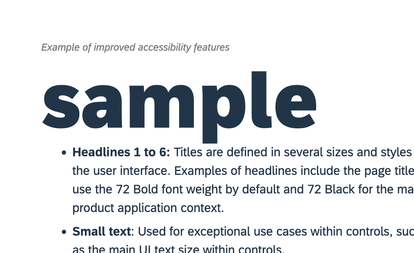
Articulate Rise body font type "72 Brand" is not rendering as it is. This showsas Times New Roman
- Could you share a bit more of the specific 72 Brand font type you are using? If I am looking at the same font you are utilizing, I see that the options are 72 Monospaced, 72 Semi Bold, and 72 Semi Bold Duplex.
- Are there any requirements needed to properly display 72 font? Or are they font files that need to be installed on a computer?
- What publishing option are you currently using? Do you notice any difference in how the 72 Brand font displays if you select another publishing output?
We'd be happy to examine your font files privately within a support case to see if we are experiencing the same behavior.
72 Brand font type is the SAP brand fonts and we need to use this for any content delivery across SAP and also to external.
I tested the behavior on my end, but was unable to replicate the same issue. I uploaded a '72 Brand' font (72black, specifically) to a sample Rise 360 course, published it for LMS (SCORM 2004), then tested the output in SCORM Cloud.
As we can see, the 72 Brand font remained the same in an LMS test environment, and did not convert to Times New Roman. I suggest connecting with your LMS admin, to see if something within the SuccessFactors environment is causing this disruption.
Steven, that's definitely not 72 Brand in your screenshot. Here's a sample of 72 Brand, notice the lowercase "L" it looks like your course is loading Lato. Hope this helps.
Thank you for sharing this screenshot with us! We appreciate you sharing what you are experiencing when using 72 Brand.
I want to confirm that our team is currently tracking a bug where custom font names that begin with a numerical character won't upload properly. As a workaround, folks can rename the custom font so that it starts with a letter and not a number value.
I wanted to follow up with you regarding your Rise 360 course and utilizing 72 Brand font.
Our team is currently tracking a bug where custom font names that begin with a numerical character will not upload properly. We'll be sure to update this discussion in the future on a fix.
As a workaround, you can rename the custom font so that it starts with a letter and not a number value. You should see the font display correctly after modifying the Custom Font title.